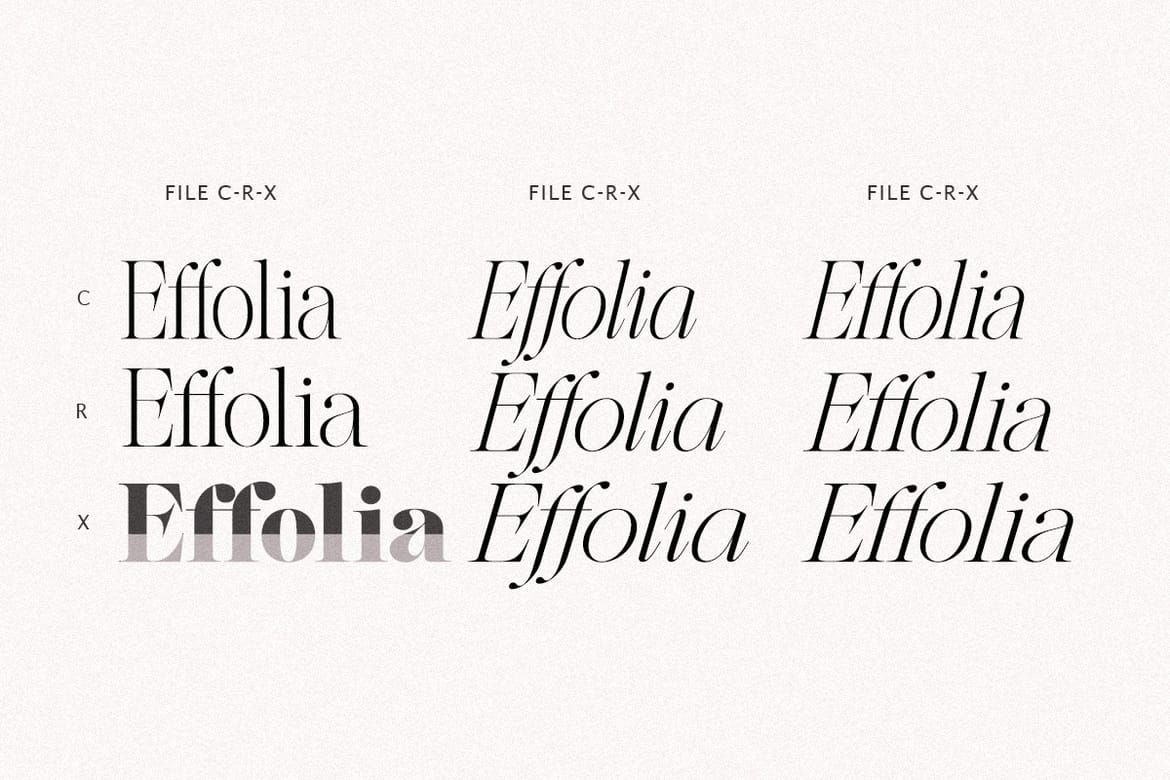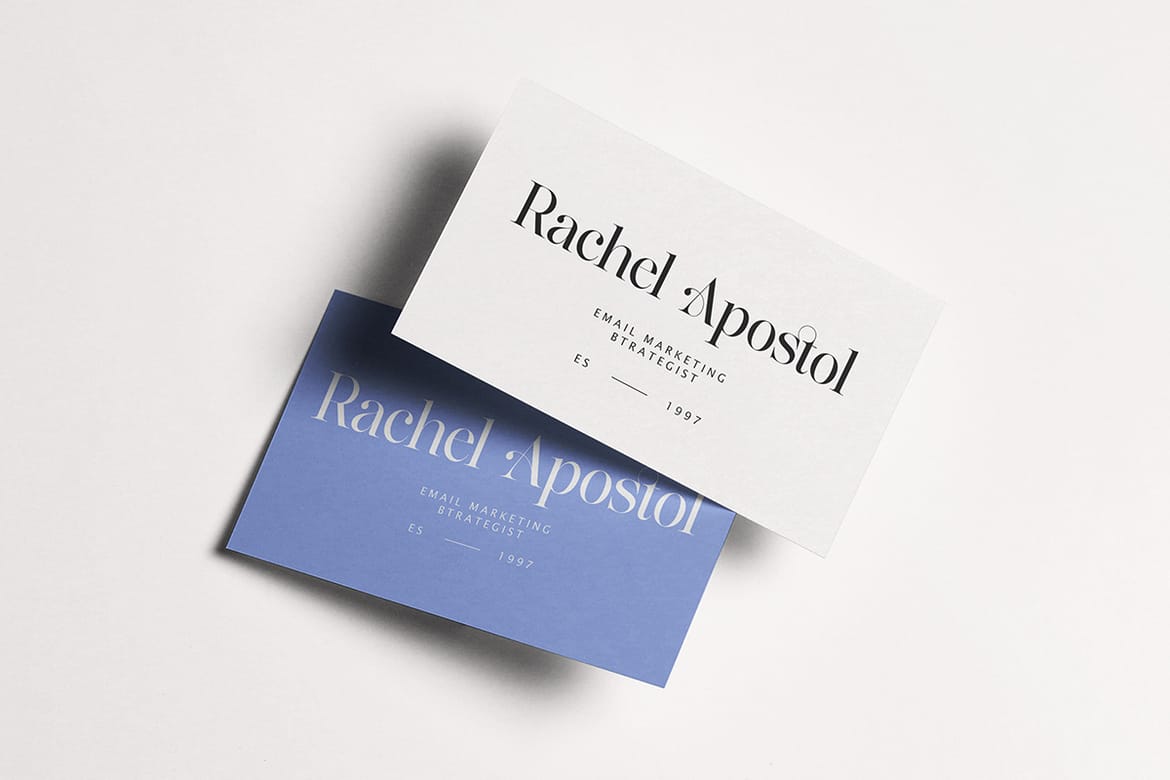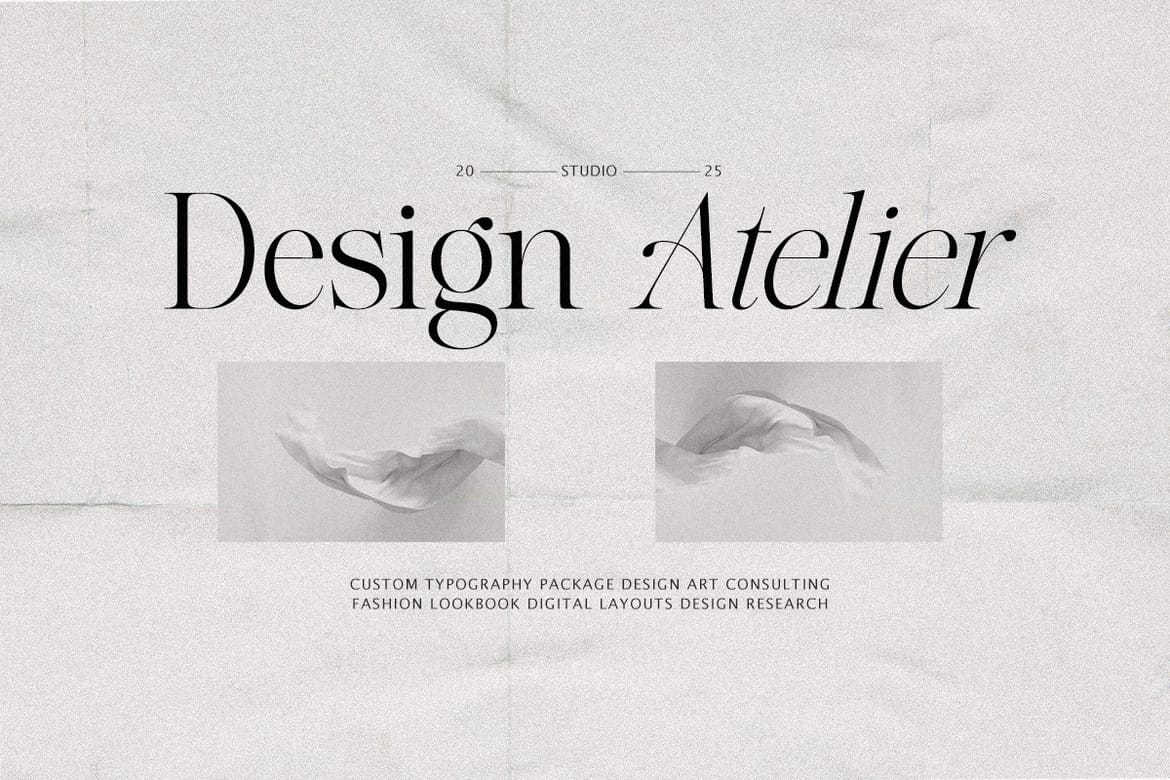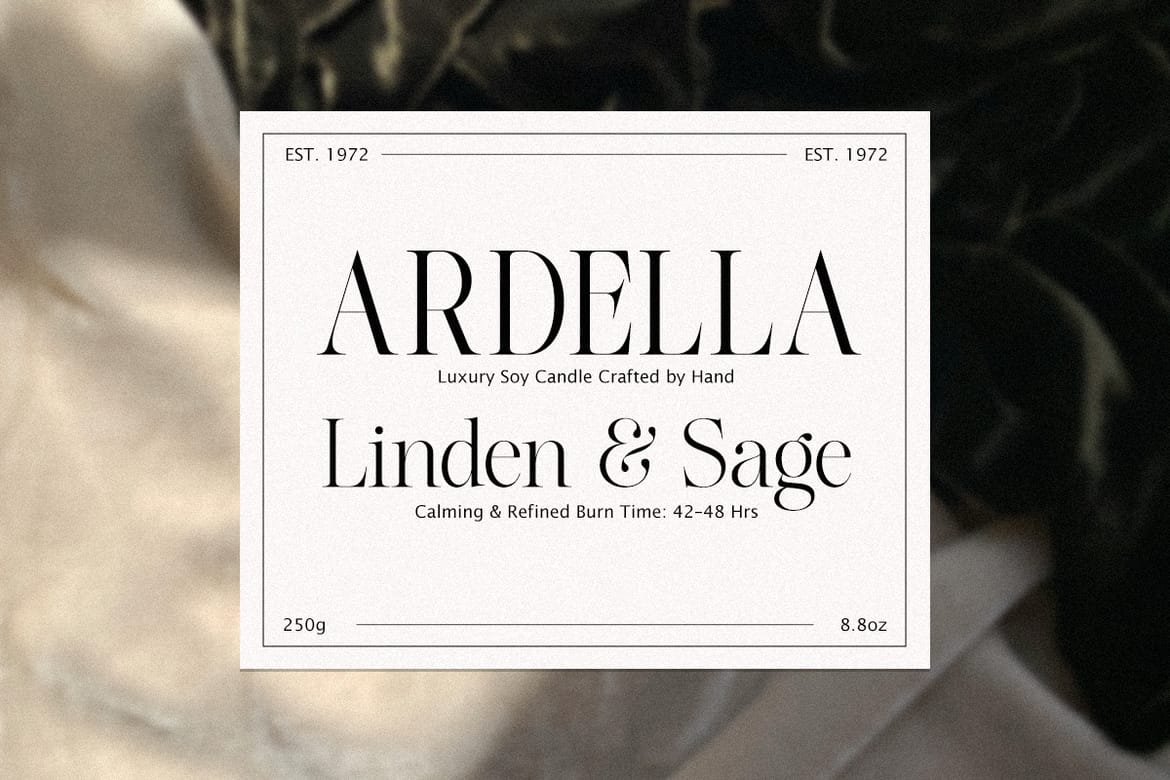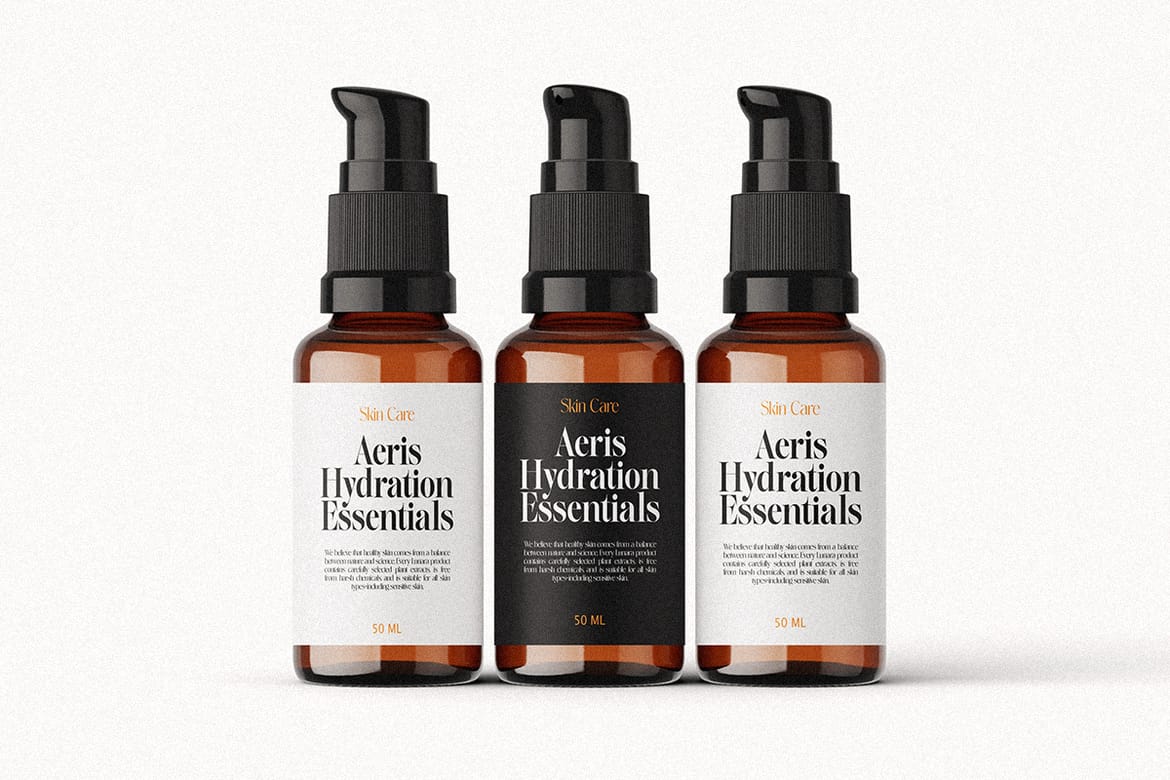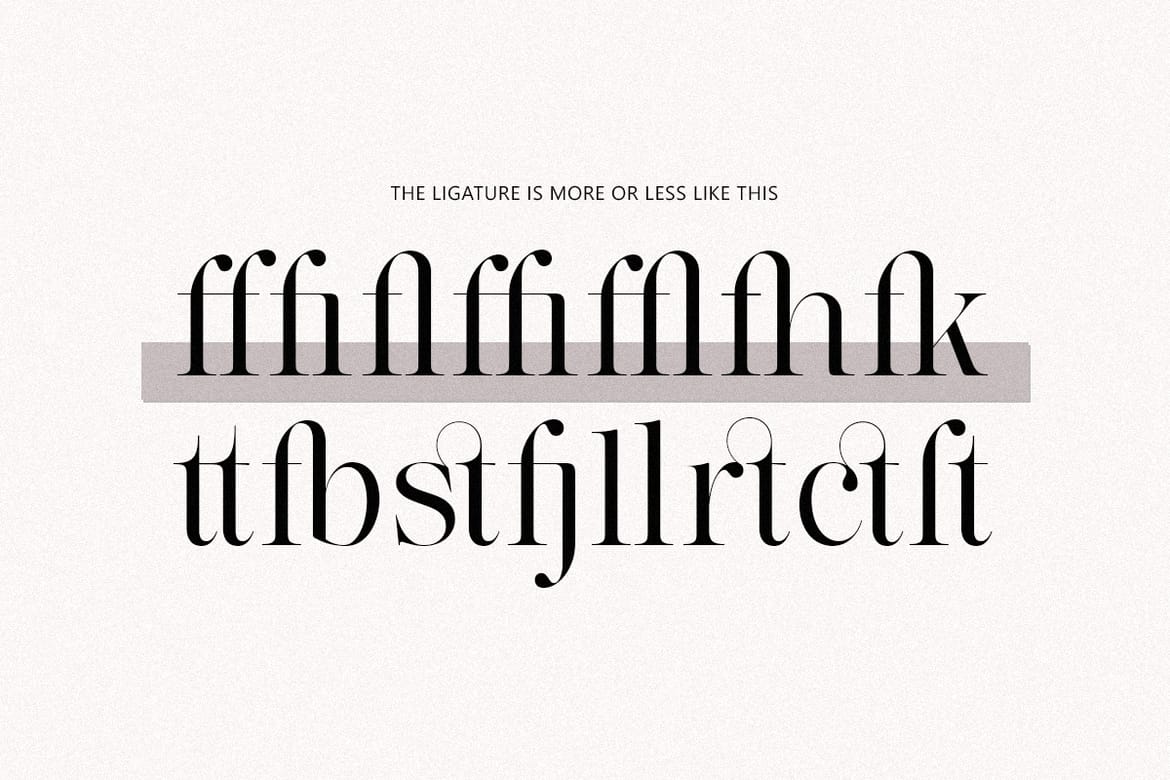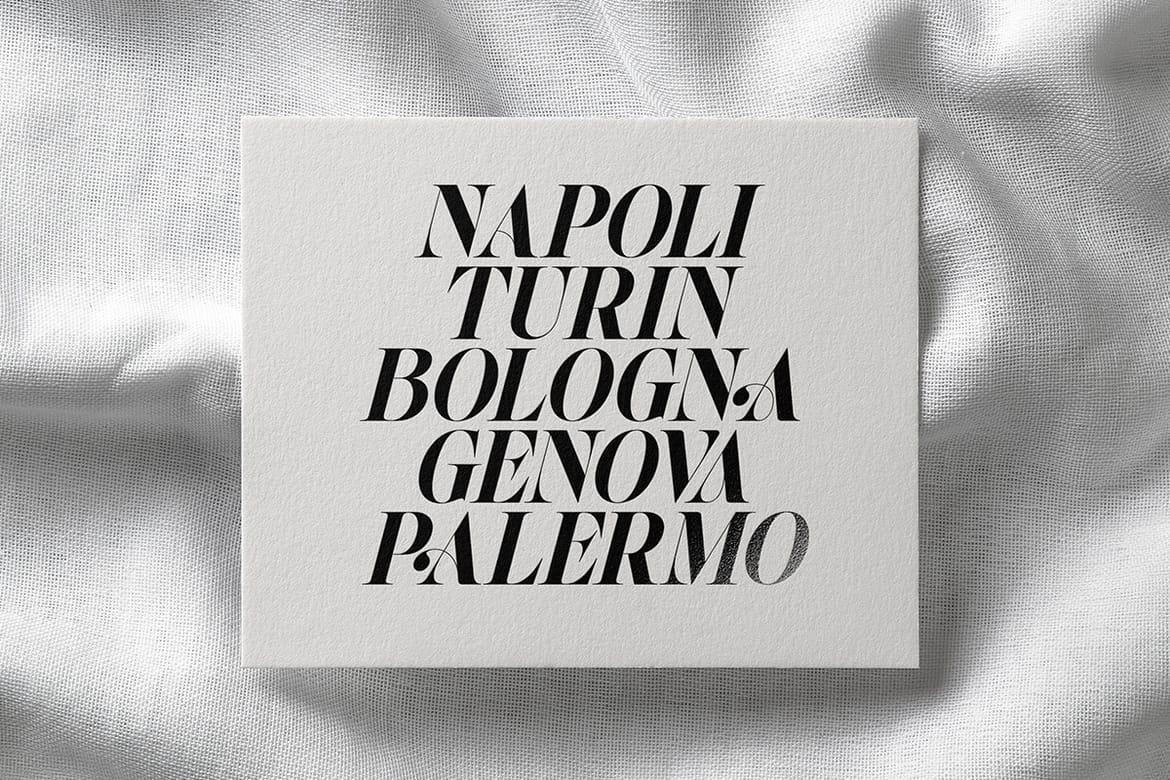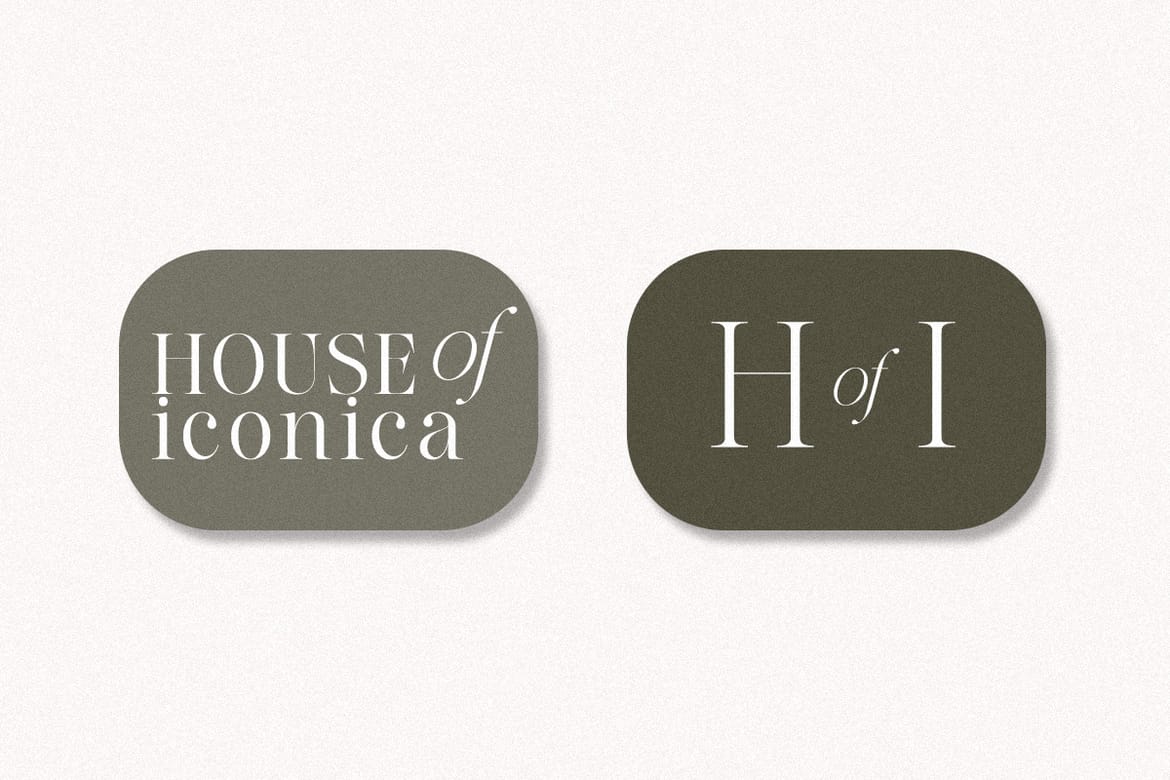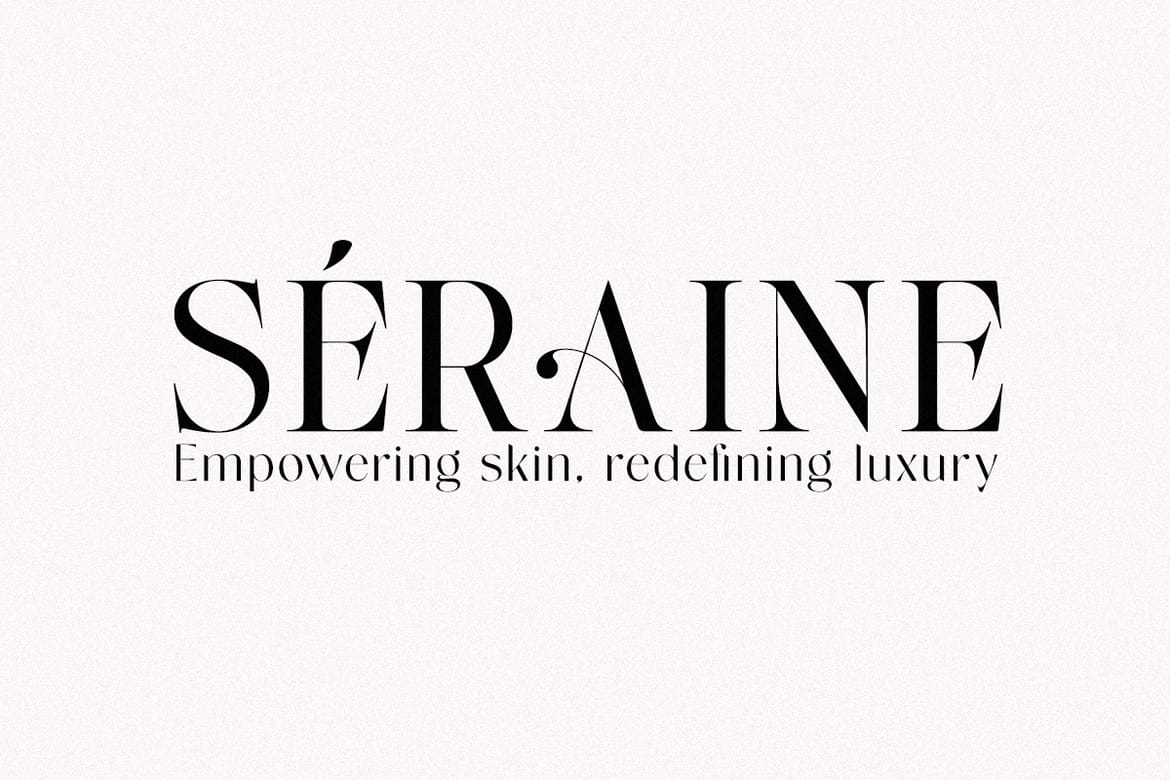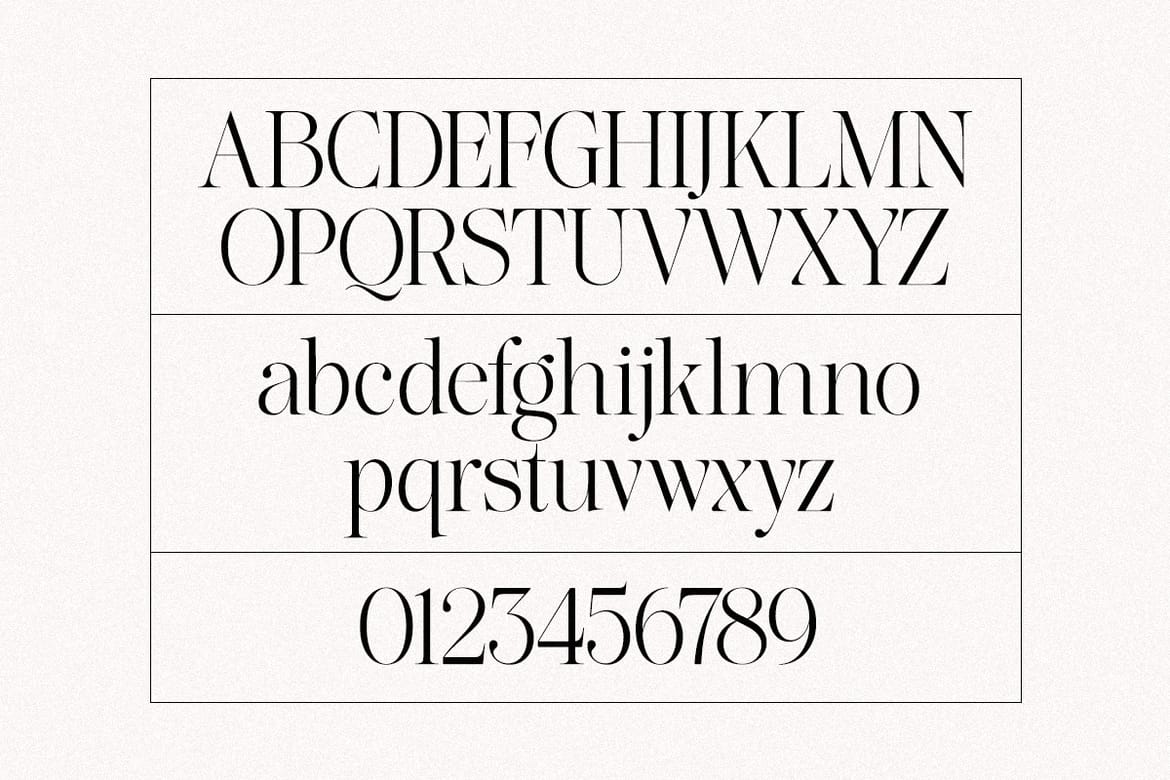
The Effolia | 9-Weight Classy Family
Introducing The Effolia: A Serif Typeface for Modern Aesthetics The Effolia is part of The Softly Serif font family, renowned for its blend of classic serif elegance and modern sophistication. In this package, you will receive 81 font files from 9 family styles, giving you a versatile collection to suit a wide range of design needs. Experience the charm of timeless elegance with The Effolia, a carefully crafted serif typeface that blends classic charm with contemporary style. Its high-contrast strokes and graceful curves create a visual symphony that captivates the eye and elevates any design. Whether you're creating a sophisticated editorial layout, a striking brand identity, or an engaging website, The Effolia's versatility and refined character make it an exceptional choice. What You'll Get: - 81 Font Files across 9 family styles - OTF and TTF formats included - Perfect for editorial, branding, web, and packaging
• 9-weight family, 81 font files
• High-contrast serif, graceful curves
• Perfect for editorial & branding